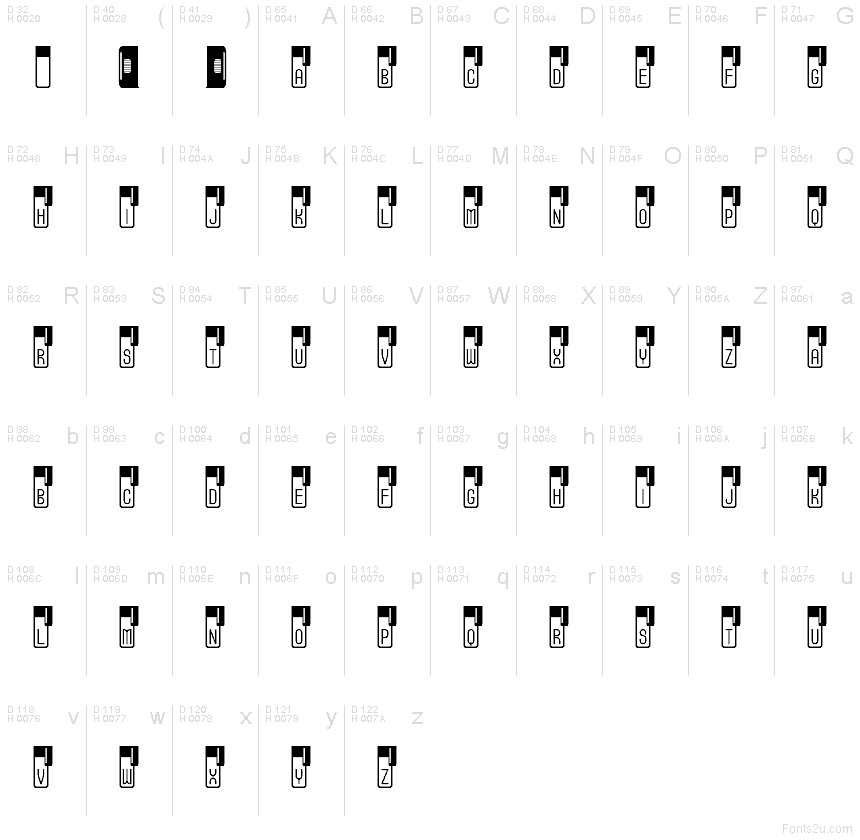
Klavier Extra Condensed Regular
Klavier Extra Condensed font by Vladimir Nikolic is a stylish, decorative free display font with condensed width and a captivating musical theme integration. This remarkable geometric typeface stands out with sleek, modern vibes and minimalistic and elegant strokes giving it a clean overall appearance. Such characteristics make Klavier perfectly suitable for various creative applications.